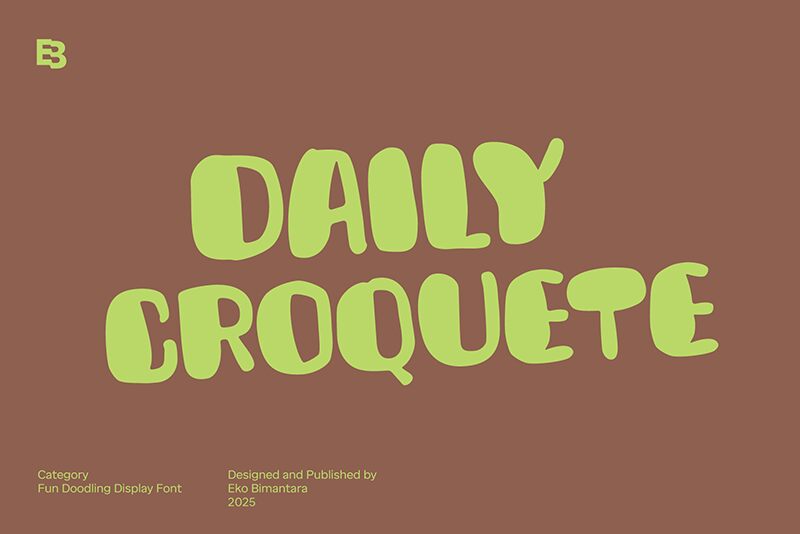
Daily Croquete font designed by Eko Bimantara is a friendly and whimsical comic font with rounded letters filled with animated personalities. It has a casual, informal, and lively style that gives it a playful look and an approachable presence. Inspire modern ideas with this beautifully organic font and let its charming display be your shortcut tool for your design projects.
Daily Croquete is the best choice for comic posters and children’s books and covers. It can also be used for kids’ websites or mobile applications. Its friendly appearance makes it great for video titles, fun graphics for flyers and brochures, games, or even class projects.